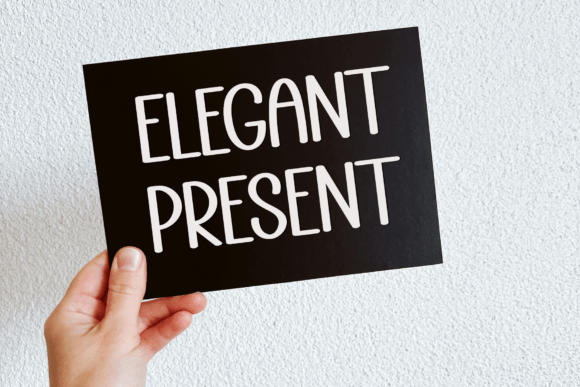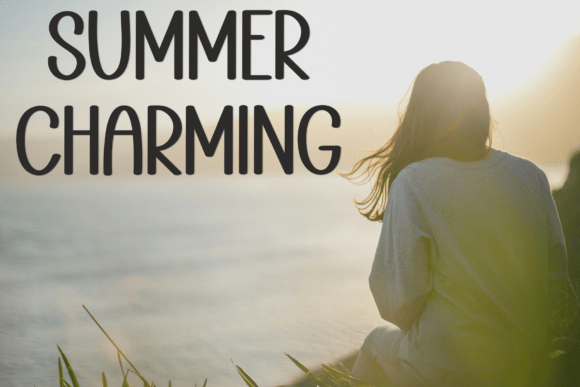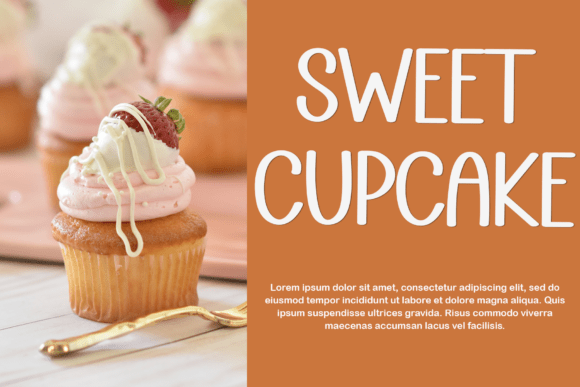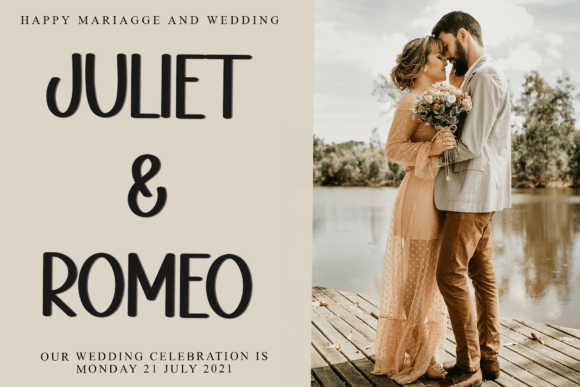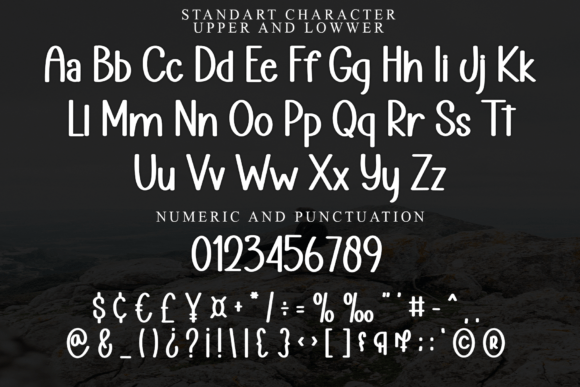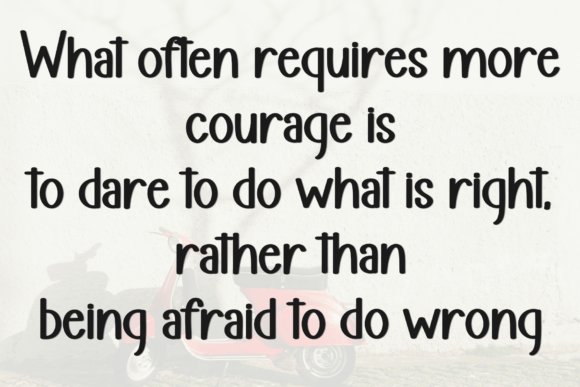
Introduction to Nighty Part Font
Have you ever been stuck on a creative project, searching for the perfect font to bring your vision to life? You know, that one elusive design element that ties everything together? I’ve been there too, and that’s exactly why I’m excited to introduce you to the Nighty Part Font – a free download that’s about to become your new go-to design resource.
With its charming, hand-drawn aesthetic and round, playful strokes, the Nighty Part Font exudes warmth and friendliness, making it perfect for personal projects, invitations, and social media graphics. Whether you’re working on a high-quality design for a client or creating a fun, transparent background for your own social media post, this font is sure to add a unique touch to your work.
As a valuable addition to any designer’s toolkit, the Nighty Part Font is equipped with standard PUA Encoded glyphs, ensuring seamless compatibility with various application engines like Adobe Photoshop, Corel, Adobe Illustrator, Canva, and many more. Get ready to elevate your designs with this delightful font, and discover why it’s quickly becoming a favorite among designers.
Key Features of Nighty Part Font
- High-quality design resource with a unique, modern aesthetic, perfect for creative projects.
- Unique, handcrafted design elements that add a touch of personality to any creative project.
- Perfect for designers seeking a distinctive, high-quality font for their next project or design resource.
Honest Review: Nighty Part Font
I recently stumbled upon the Nighty Part Font, and I’m excited to share my thoughts on this design resource. As a designer, I’m always on the lookout for high-quality fonts that can elevate my creative projects.
- ✨ High-quality design: The font is crisp, clear, and well-designed.
- ✨ Versatile styles: The Nighty Part Font offers a range of styles to suit different design needs.
- ✨ Transparent background: The font’s transparent background makes it easy to use in a variety of design contexts.
- ⚠️ Limited character set: The font’s character set is limited, which may not be suitable for more complex design projects.
- ⚠️ Not ideal for body text: While the font is great for headings and titles, it may not be the best choice for body text.
Overall, I’m impressed with the Nighty Part Font, and I think it’s a great addition to any designer’s toolkit. While it may have some limitations, its high quality and versatility make it a valuable resource for any creative project.
How to Use Nighty Part Font
Tips for Getting the Most Out of Nighty Part Font
For a high-quality design, use the Nighty Part Font on a transparent background to give your text a clean and modern look. Experiment with different font sizes and colors to find the perfect combination for your creative project.
The Nighty Part Font is perfect for a variety of design projects, including social media graphics, blog posts, and marketing materials. Its unique design and high quality make it a great choice for any creative project.